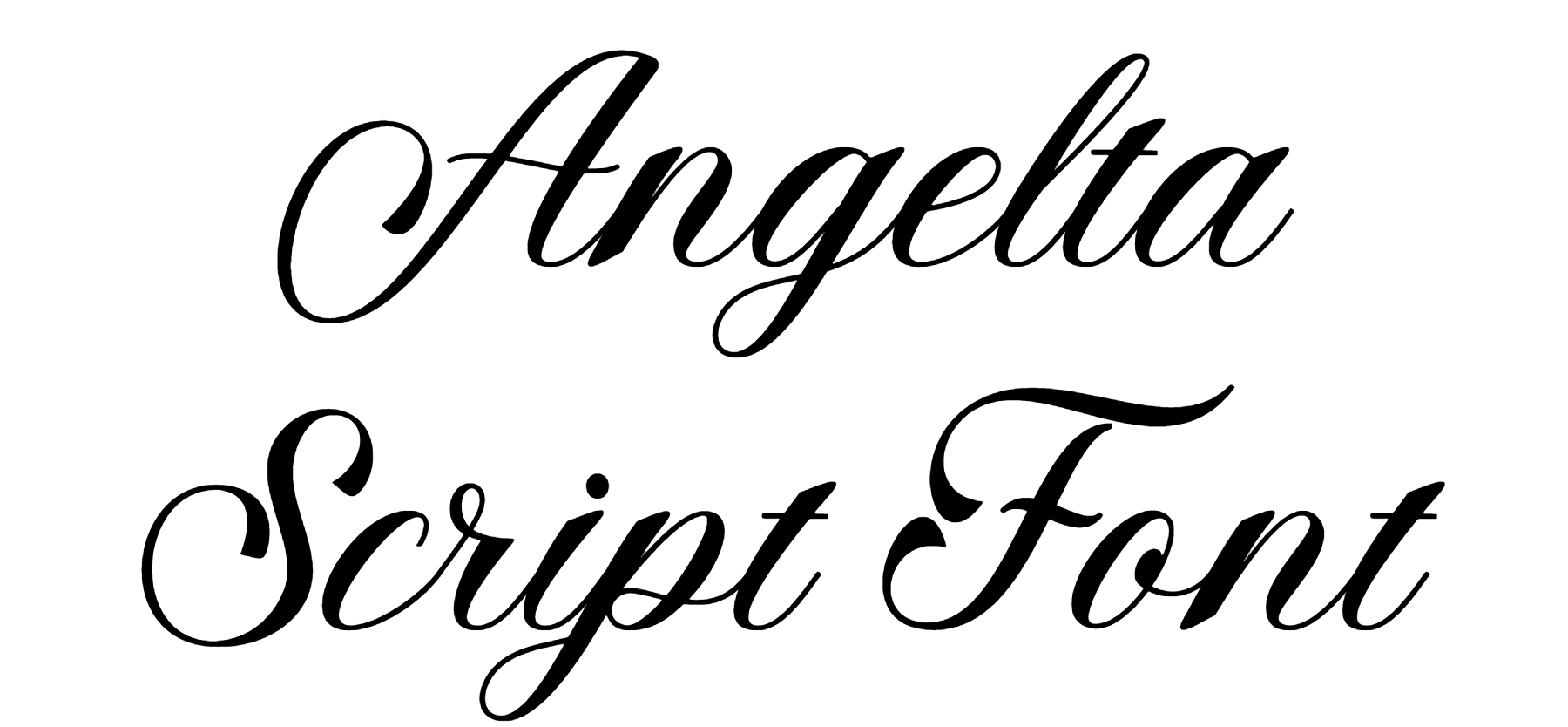
Angelta Script
Angelta Script is a calligraphy font designed by RIZKI ANDIKA and published by LetterFreshStudio (2020). It has that hand-lettered, flowing feel people look for when regular type seems too stiff. It's a free download, and you can try it with your own text in the preview above first.
What You Can Type With Angelta Script
You get every letter from A to Z in both cases and all the numbers from 0 to 9, which means Angelta Script can handle full sentences, dates and prices. Common punctuation such as &, !, ? and @ is included as well. It also has the accented letters you need for Spanish, German and Italian.
Where Angelta Script Works Best
Think of Angelta Script for wedding invitations, certificates and elegant quotes. Script fonts read best in short bursts, so keep it to names, titles and one-line quotes. Skip all caps: script capitals are drawn to start a word, not to fill one.